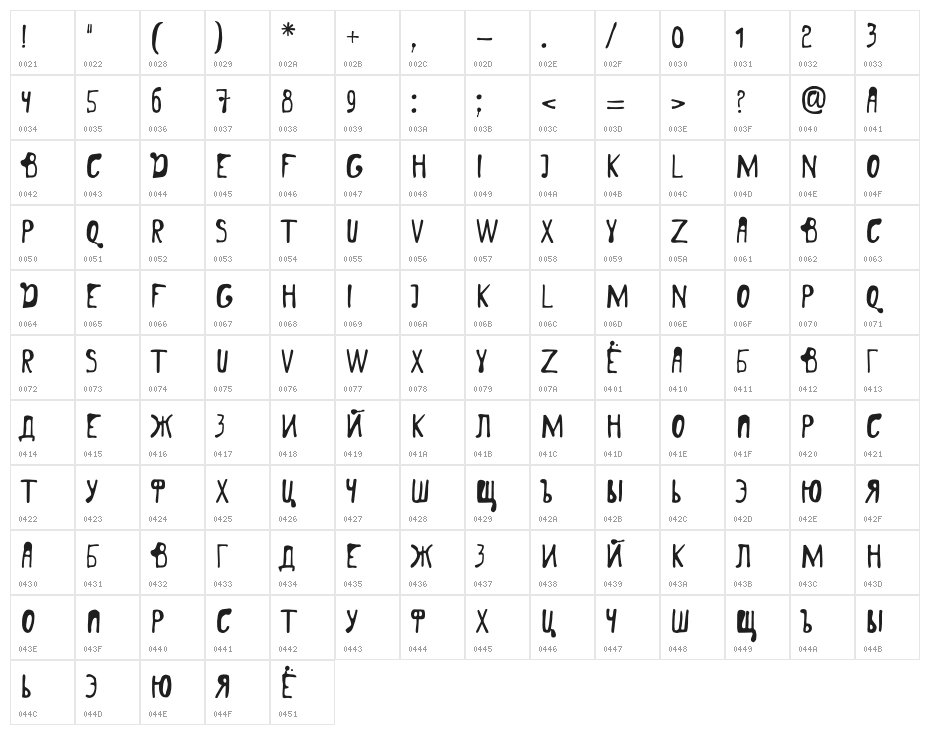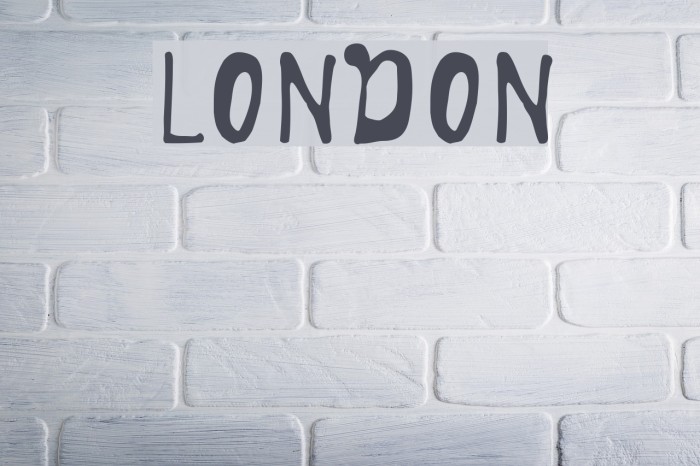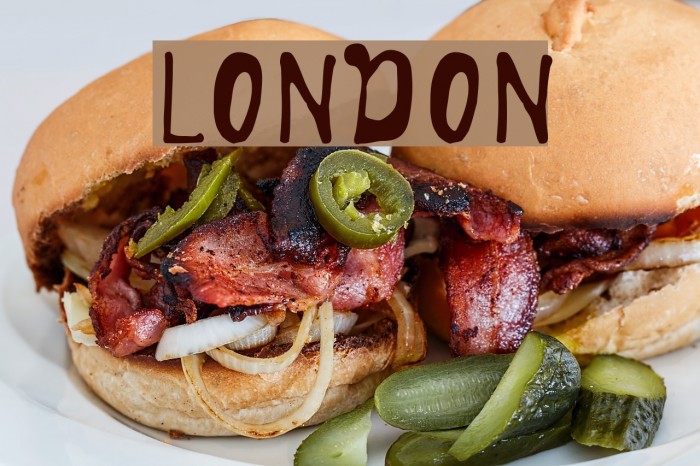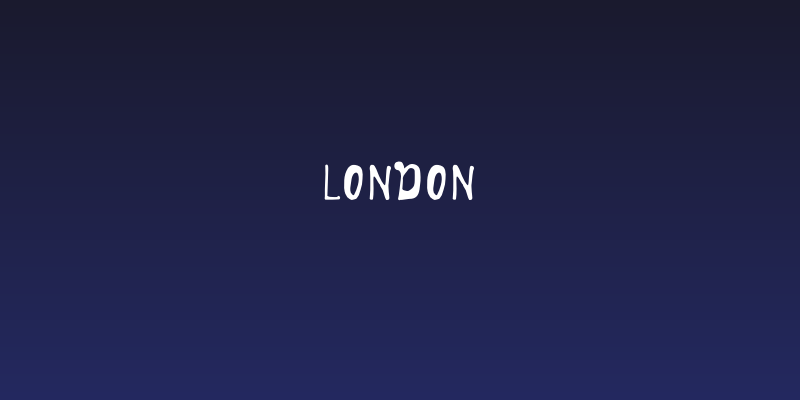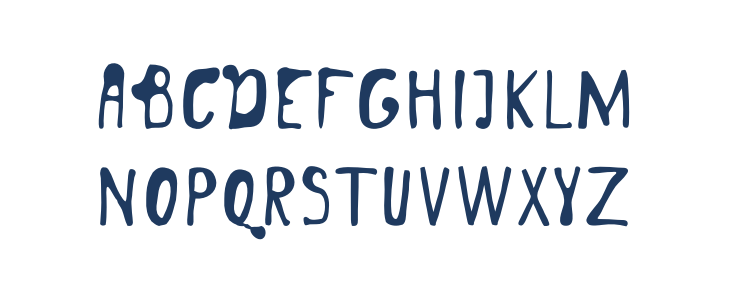
London Font
London Description
This font features a playful and quirky design with uneven, hand-drawn strokes that give it a whimsical and artistic feel. The characters are bold and slightly irregular, adding a unique charm to the text. The uppercase letters are particularly distinctive, with some characters having exaggerated curves and loops, while others maintain a more straightforward appearance. The lowercase letters continue this theme with a consistent style that complements the uppercase set. Numbers and special characters are included, maintaining the same playful aesthetic. This font is perfect for projects that require a touch of creativity and individuality.